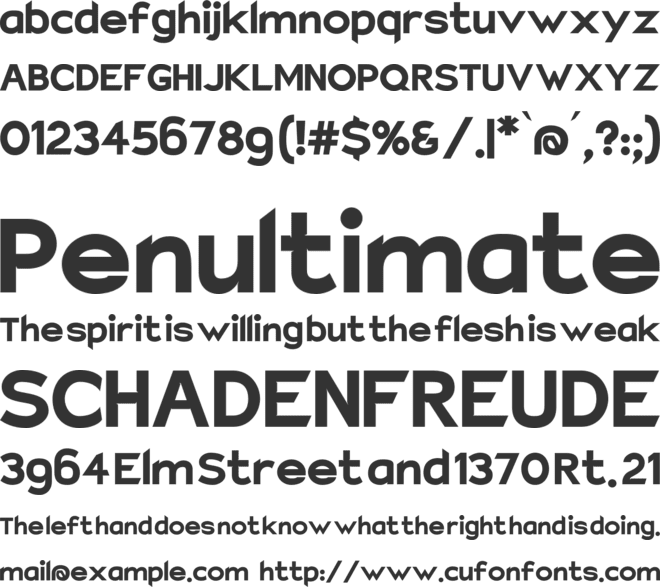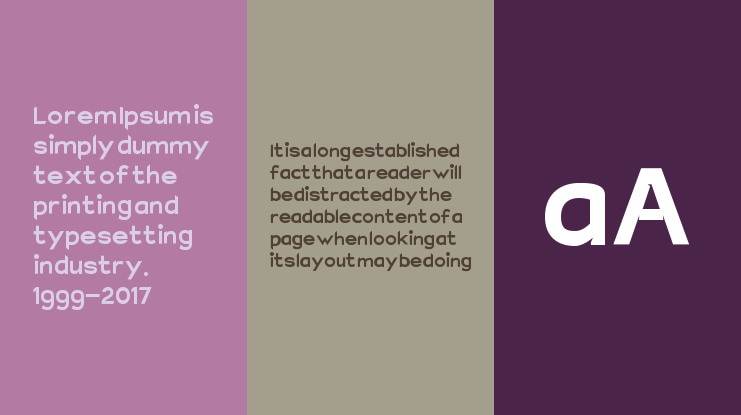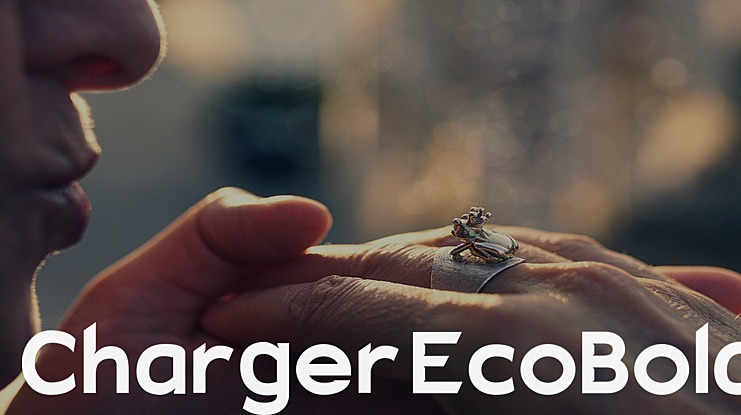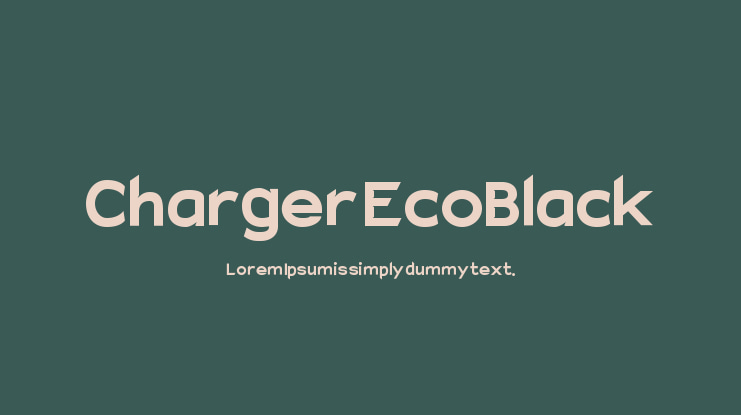
Charger EcoBlack Font Family
Charger Eco is a new Charger variant, it has ink traps added and other design modifications to save ink when printed compared to the heavier weights of other Charger variants, including Charger Pro and Charger Sport, and to have a unique look.